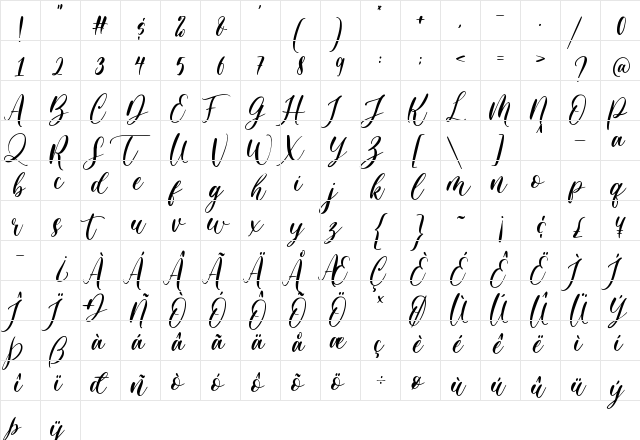
Pretty Smile Regular
| Designer | Muhamad Yusron Billah |
Design Context for Pretty Smile Typeface
Pretty Smile is a composed and adaptable typeface that performs quietly and consistently across a wide range of design contexts.